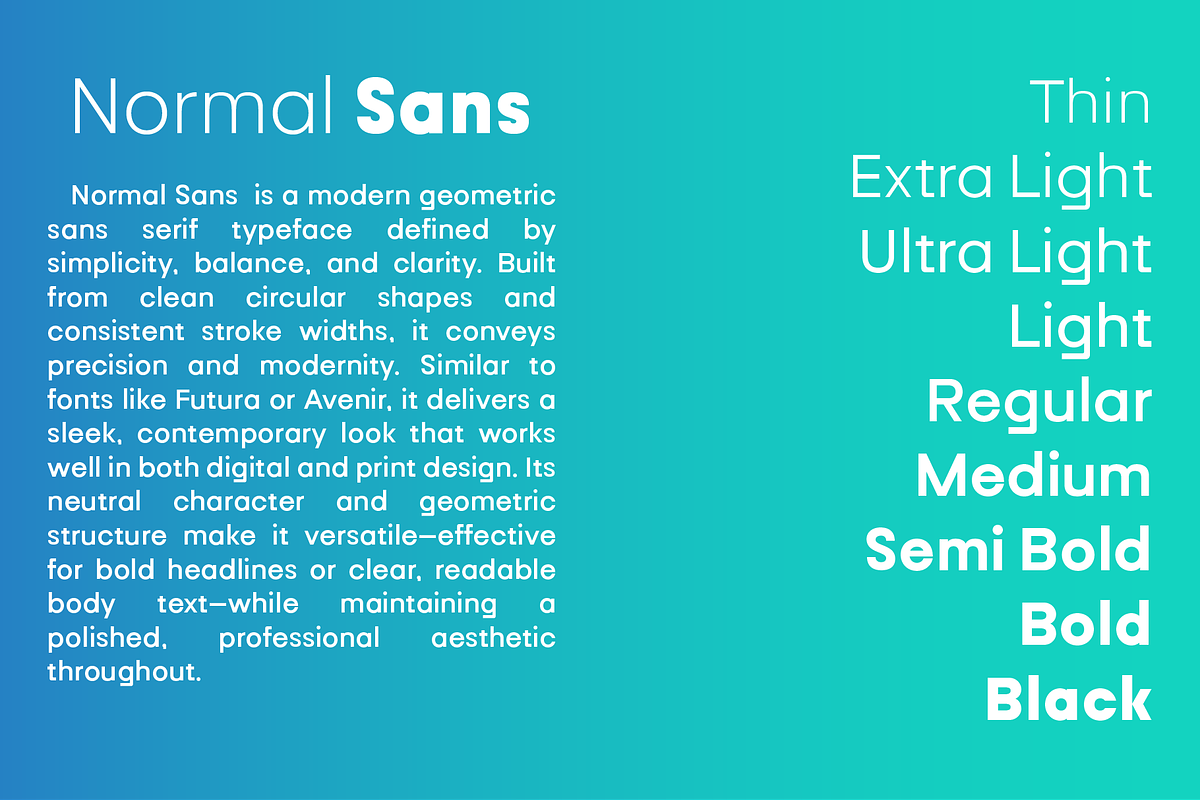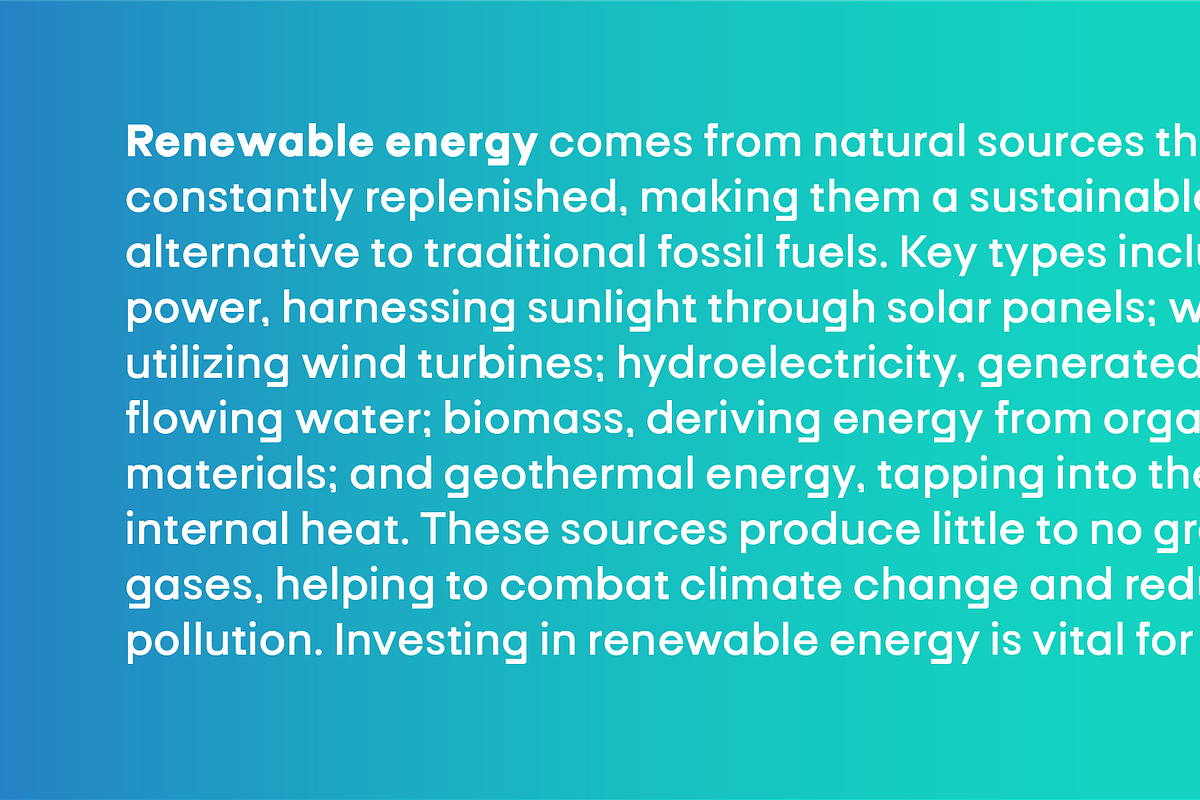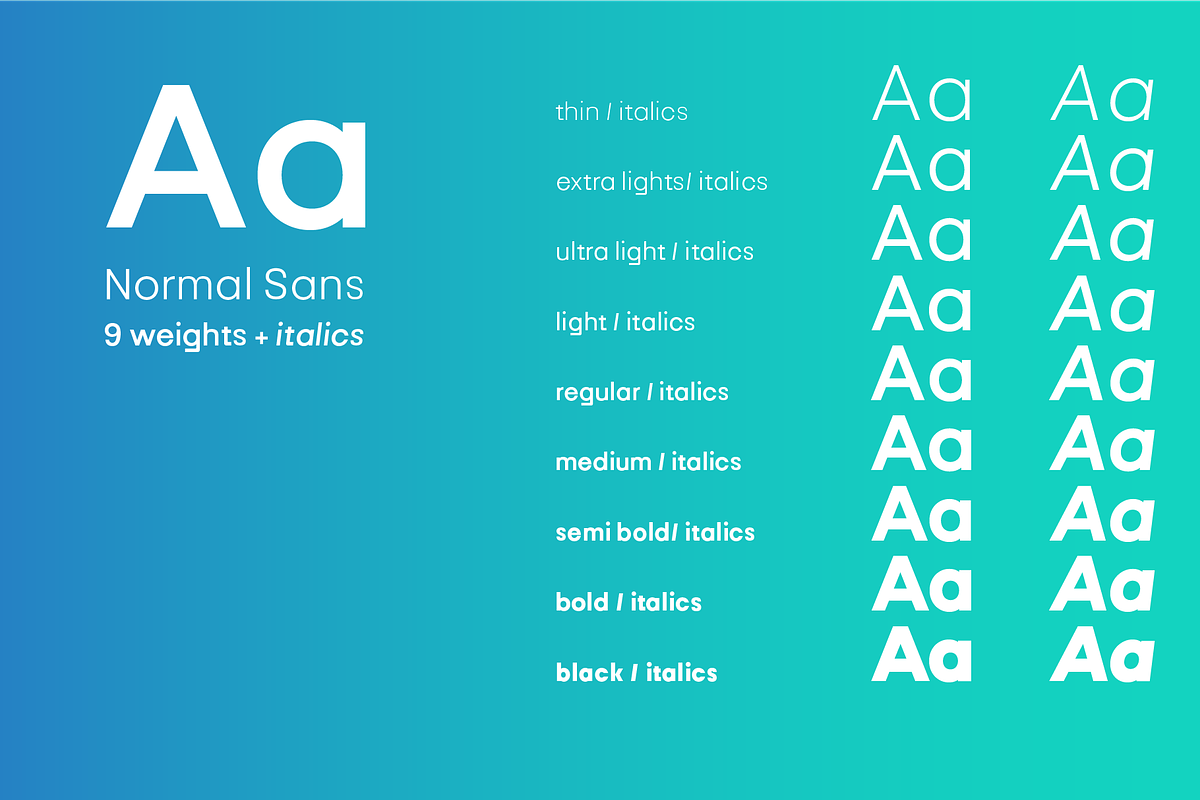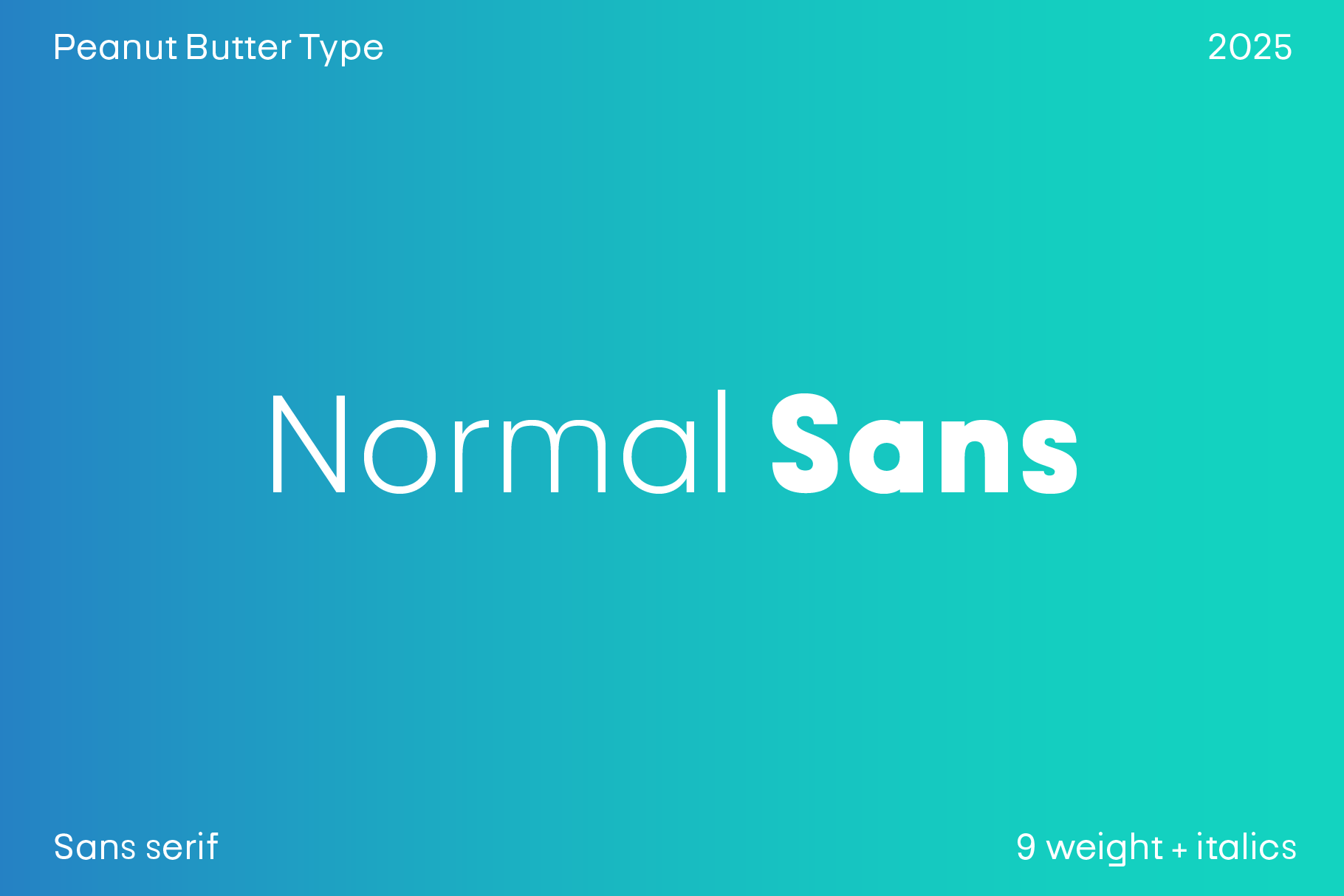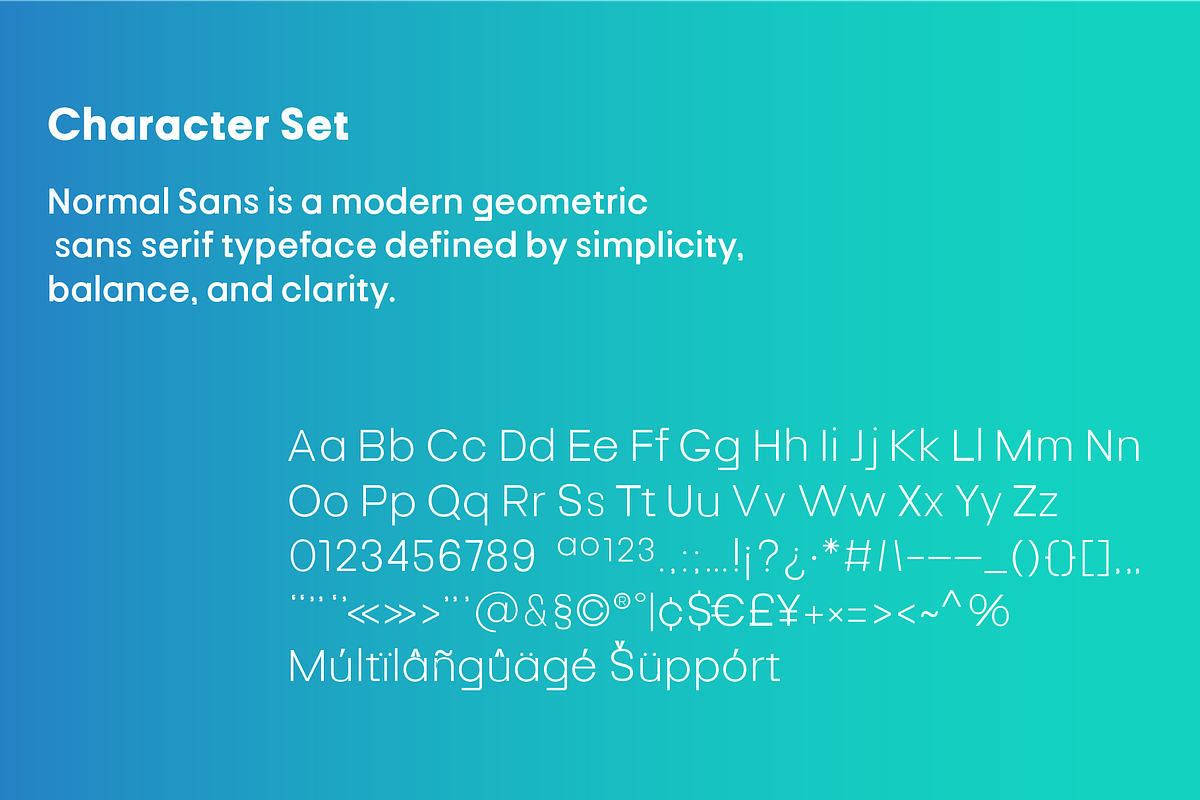
Normal Sans Geometric Font Family
Normal Sans is a modern geometric sans serif typeface defined by simplicity, balance, and clarity. Built from clean circular shapes and consistent stroke widths, it conveys precision and modernity. Similar to fonts like Futura or Avenir, it delivers a sleek, contemporary look that works well in both digital and print design. Its neutral character and geometric structure make it versatile—effective for bold headlines or clear, readable body text—while maintaining a polished, professional aesthetic throughout.